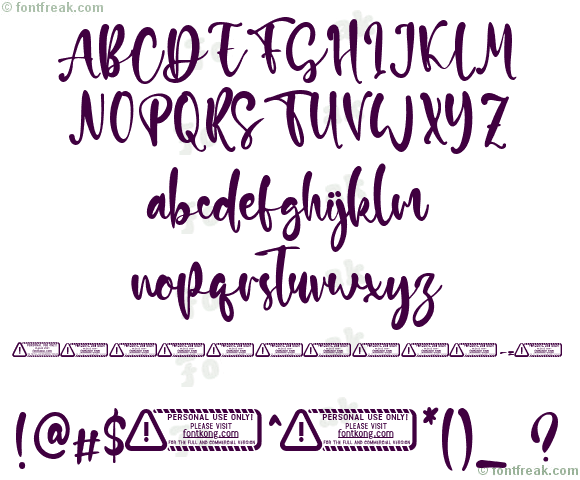
Daniel Rachel
The Daniel Rachel font by Kong Font is a beautifully crafted script typeface that exudes elegance and charm. Released in 2021, this font is characterized by its flowing lines and playful curves, making it a perfect choice for projects that aim to convey warmth and personality. The stroke weight varies throughout the letters, providing a balanced contrast that enhances its visual appeal. The generous spacing between characters contributes to its readability while maintaining a sense of fluidity, making it suitable for various design applications.
This versatile font shines in several specific use cases. For wedding invitations, Daniel Rachel adds a touch of romance and sophistication, enhancing the overall aesthetic of any event. It also works wonderfully for restaurant menus, where its inviting style can make dishes appear more enticing. For branding purposes, small business owners can leverage this font to create memorable logos that stand out in a crowded market. Additionally, the Daniel Rachel font is ideal for social media graphics and promotional materials, attracting attention and engaging audiences effectively.
Targeting graphic designers, small business owners, and content creators, this typeface offers a unique blend of style and functionality. Its distinct character makes it an excellent option for those looking to add a personal touch to their designs without sacrificing professionalism.
Overall, the Daniel Rachel font free download is a remarkable addition to any designer's toolkit. Its combination of elegance and versatility sets it apart from other script fonts, making it a go-to choice for those seeking to create visually stunning and impactful designs. Whether you’re crafting invitations, branding materials, or digital content, this font delivers a unique flair that resonates with audiences.